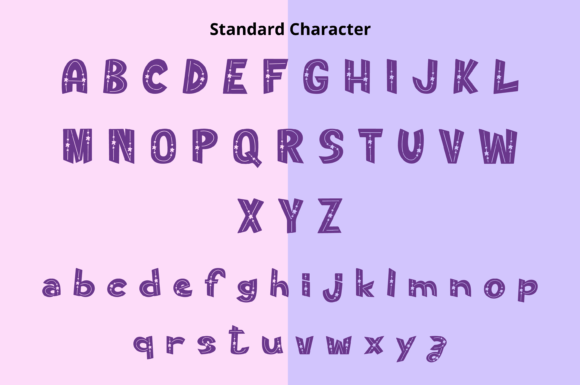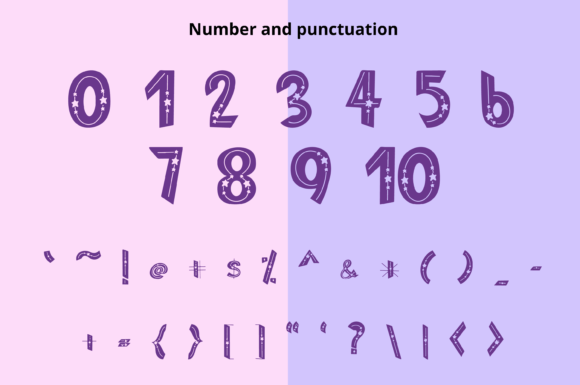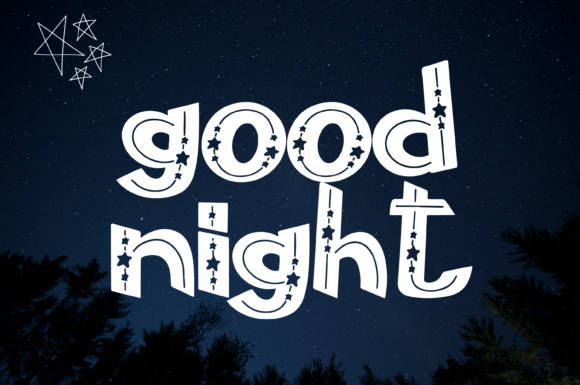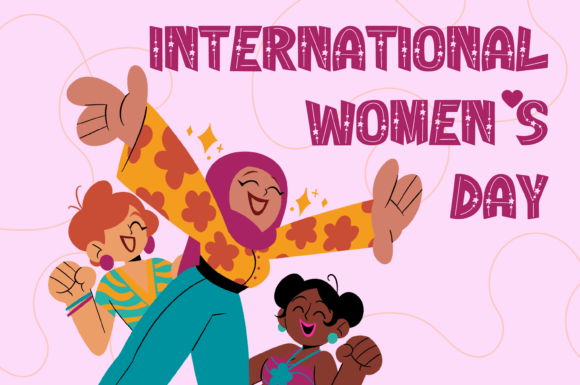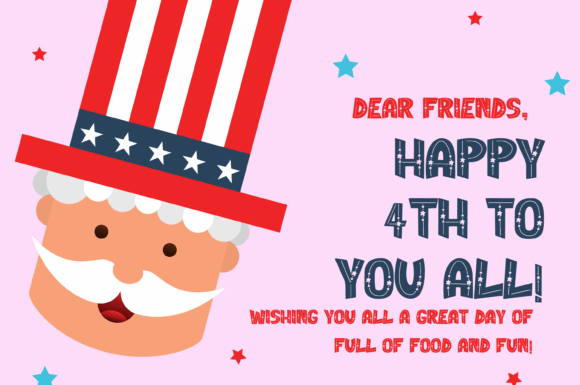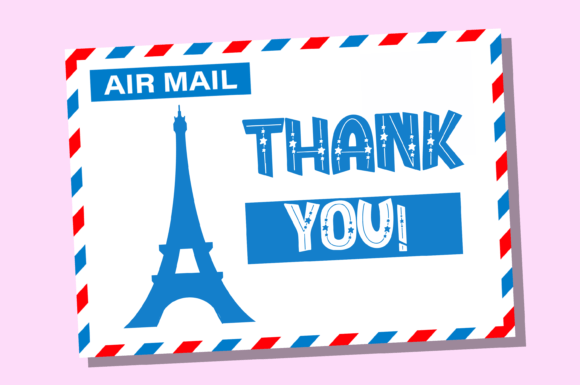
Introducing Delight Star Font: The Ultimate Display Font for Joyful Designs
Are you tired of using the same old fonts for your designs? Look no further! Delight Star Font is here to revolutionize your creative projects with its joyful and colorful display font. This stunning font is perfect for anyone looking to add a pop of personality to their work. With its bold letters and crazy colors, Delight Star Font is sure to make your designs stand out from the crowd.
What Makes Delight Star Font So Special?
Delight Star Font is a one-of-a-kind display font that is designed to bring a smile to your face. Its bold and colorful letters are carefully crafted to add a touch of whimsy to any design. Whether you’re working on a logo, poster, or social media graphic, Delight Star Font is the perfect choice. Its unique and playful style is sure to capture the attention of your audience and leave a lasting impression.
Key Features of Delight Star Font
- Bold and Colorful Letters: Delight Star Font features bold and colorful letters that are sure to make your designs pop.
- Joyful and Playful Style: This font is designed to bring a touch of joy and playfulness to your designs.
- Perfect for Display Text: Delight Star Font is ideal for display text, such as headings, titles, and logos.
Benefits of Using Delight Star Font
There are many benefits to using Delight Star Font in your designs. Here are just a few:
- Adds Personality to Your Designs: Delight Star Font adds a touch of personality to your designs, making them more engaging and memorable.
- Perfect for Kids and Adults Alike: This font is perfect for designs aimed at kids and adults alike, as it’s fun and playful without being too childish.
- Increases Brand Recognition: Using a unique and recognizable font like Delight Star Font can help increase brand recognition and build a strong brand identity.
Who Can Benefit from Delight Star Font?
Delight Star Font is perfect for a variety of designers and crafters, including:
- Graphic Designers: Graphic designers can use Delight Star Font to add a touch of personality to their designs, from logos to social media graphics.
- Crafters: Crafters can use Delight Star Font to create fun and playful designs for their handmade products, such as stickers, cards, and scrapbook pages.
- Small Business Owners: Small business owners can use Delight Star Font to create eye-catching marketing materials, such as flyers, brochures, and posters.